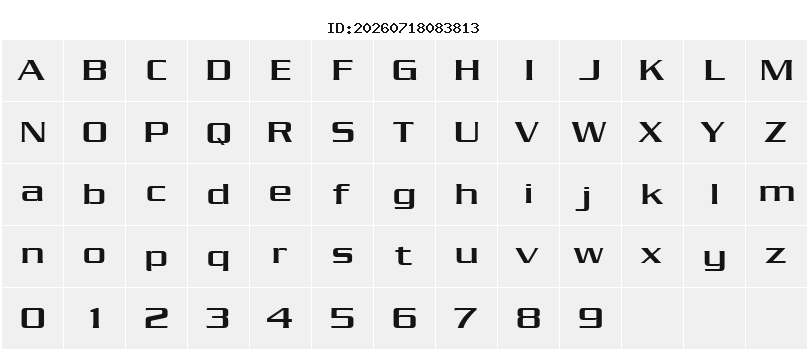
• Font Name: Chaney-Extended
• Font ID: Alts:Chaney-Wide Normal
• Full Font Name: Chaney-Extended Normal
• Version: 1.0/1995: 2.0/2001
• PostScript Name: Chaney-Wide-Normal
• Copyright: ©1995-2001 Arts & Letters Corporation
About Chaney-Extended.ttf
Chaney-Extended.ttf is a modern, elegant sans-serif font designed for ultimate readability and visual harmony. Perfect for branding, headlines, web design, and print materials.